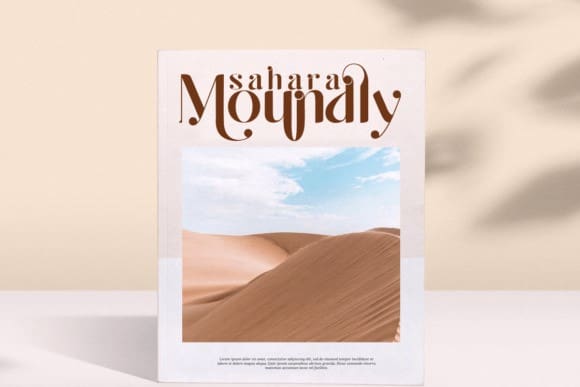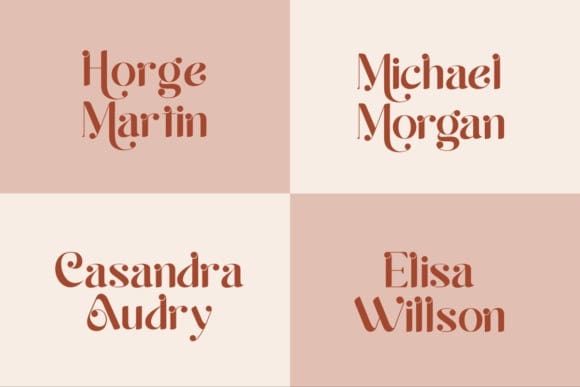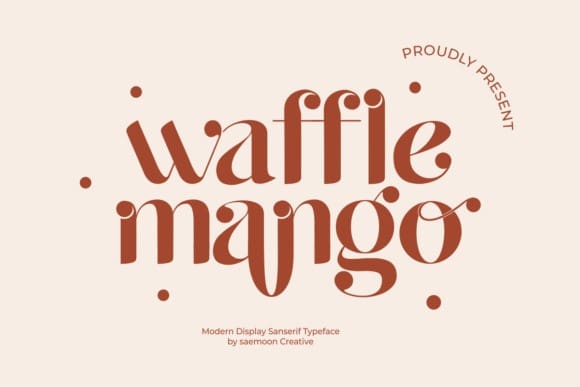
Waffle Mango Font
Waffle Mango Font is a modern and elegant sans-serif font. WaffleMango is well-suited for advertising, branding, logotypes, packaging, titles, headlines, and editorial designs.